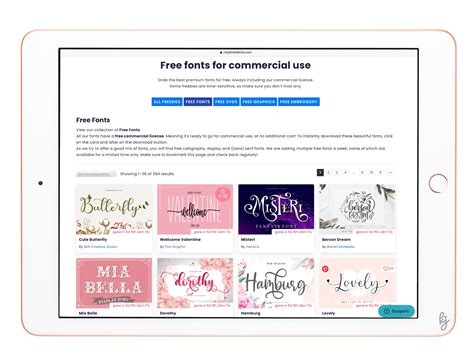
Design Like a Pro: Get These Free Fonts for iPad Procreate Now!
Making the Most of Procreate
The iPad Procreate app is one of the most powerful and creative tools available for digital artists. With a huge range of features and tools, you can create almost anything you can imagine. But one of the most important elements of design is fonts. And luckily, you don’t have to spend a fortune to get the fonts that you need for your artwork. There are plenty of great free fonts available for Procreate, and with a little bit of research, you can find the perfect font for your project.The Benefits of Free Fonts
When it comes to finding free fonts for Procreate, there are a few different options. One of the best ways to find free fonts is to search online. There are many websites that offer free fonts, and you can easily browse through the options to find the perfect font for your project.Another great option is to look for free font bundles. These bundles often contain a variety of different fonts, so you can pick and choose the ones that will fit your project best. Plus, many of these bundles are designed specifically for Procreate, so you know that the fonts will work with the app.Installing Free Fonts on Procreate
A great example of free fonts for Procreate is the Bebas Neue font. This font is a modern and stylish sans serif font that can be used for a variety of design projects. It’s a great choice for headline text, logos, and more.The Importance of Font Choice
Choosing the right font is an important part of any design project. The right font can make or break a design, and it’s important to take the time to find the right one. With free fonts, you can experiment and find the perfect font for your project without breaking the bank.Point of View
Free fonts are an invaluable resource for any designer. With the right font, you can add personality and style to your project without spending a fortune. And with the wide range of free fonts available for Procreate, you’re sure to find the perfect font for your project. Free fonts for Procreate are a great way to add personality and style to your project without breaking the bank. With a little bit of research, you can find the perfect font for your project and start creating amazing designs with Procreate.Source: CHANNET YOUTUBE Let’s Make Designs!